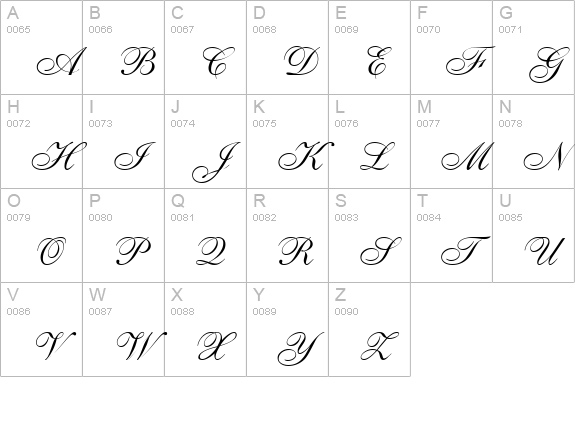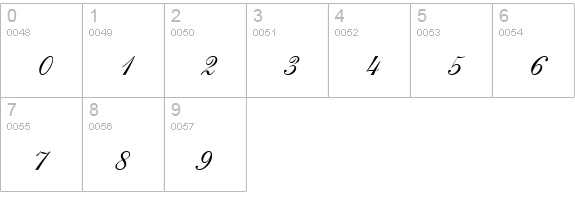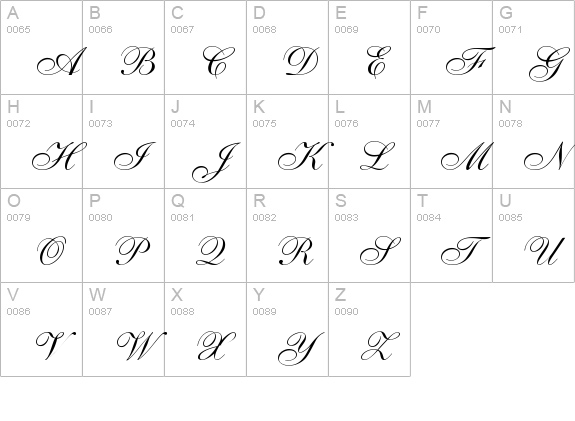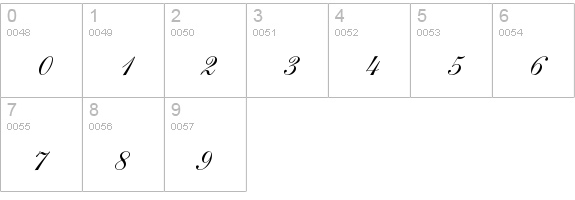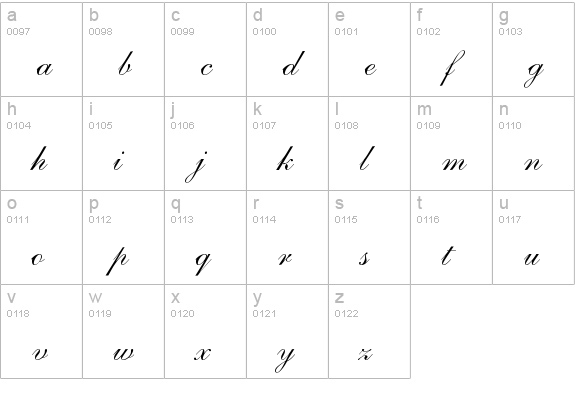
Pen Tweaks One SSi Font Details
Introducing Pen Tweaks One SSi, a truly remarkable font that effortlessly fuses elegance and playfulness. This one-of-a-kind typeface is the perfect choice for those seeking to add a touch of whimsy to their designs, while still maintaining a sense of sophistication. Pen Tweaks One SSi features a unique hand-drawn style, with beautifully flowing curves and intricate details that bring each character to life. The varying line weights create a dynamic and captivating visual experience, making this font a standout choice for any project. But what truly sets Pen Tweaks One SSi apart is its versatility. Whether you're designing a logo, creating eye-catching headlines, or crafting invitations that demand attention, this font has the flexibility to adapt to any creative vision. And the best part? Pen Tweaks One SSi is available for free download at FontsMarket.com. That's right, you can enhance your designs with this extraordinary font without spending a dime. Simply head over to FontsMarket.com and discover the endless possibilities that Pen Tweaks One SSi has to offer. So why wait? Embrace the charm and allure of Pen Tweaks One SSi and elevate your designs to new heights. Download this free font today and make your creative endeavors truly unforgettable.